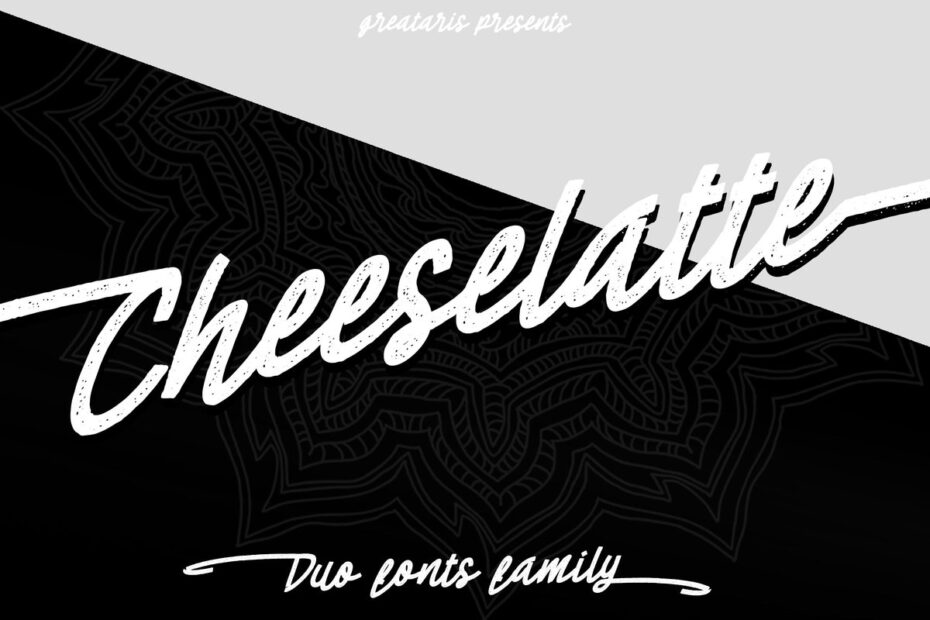
Unleashing the Artistic Expression: Cheese Latte Font
Have you ever found yourself wandering through a bustling market or flipping through a vintage magazine, and suddenly, a font catches your eye? For me, it was a moment like this that sparked the creation of the Cheese Latte Font – a unique script font that blends the elegance of handwriting with the boldness of a permanent marker.
This font, born from the inspiration of packaging products, magazine layouts, and book designs, aims to bring a touch of personality to any project. Its distinctive style is not only visually appealing but also versatile, making it a valuable addition to any designer’s toolkit. With the Cheese Latte Font, designers can add a dash of creativity and flair to their work, setting it apart from the ordinary.
Cheese Latte Font Key Features
- Font Family: A unique, hand-drawn font with a playful and whimsical design.
- Unique Characteristics: Features a distinctive cheese latte-inspired design, with intricate details and textures that give it a one-of-a-kind look.
Designer Review: Cheese Latte Font
Overall, I think the Cheese Latte Font is a unique and quirky addition to any design project. ✨ Its irregular shapes and asymmetrical lines give it a charming, hand-drawn feel that’s sure to grab attention.
The font’s versatility is another major plus. ✨ It works well for a wide range of applications, from headings and titles to body text and even logos. I appreciate how the designer has included a variety of weights and styles to suit different design needs.
- Unique, hand-drawn feel
- Wide range of applications (headings, titles, body text, logos)
- Versatile weight and style options
- Good legibility, even in smaller sizes
- Some characters may not be perfect (e.g. rounded corners on certain letters)
- Not suitable for formal or corporate design projects
- May require additional design work to create a cohesive look
- Not ideal for text-heavy projects (can be overwhelming)
Overall, I think the Cheese Latte Font is a fun and creative option for designers looking to add some personality to their projects. Just be aware of its limitations and use it thoughtfully.
Practical Application Guide: Cheese Latte Font
Tip: Use Cheese Latte Font for titles and headings to add a unique touch to your designs.
Tip: Use Cheese Latte Font for custom illustrations and graphics to add a playful touch.
Tip: Use Cheese Latte Font for presentations and documents to add a unique and eye-catching element.
Cheese Latte Font is ideal for:
- Playful and whimsical designs
- Custom illustrations and graphics
- Presentation and document design
Alternatives to Cheese Latte Font
Circular Std
Circular Std is a modern sans-serif font designed for digital interfaces. It is highly legible and suitable for body text, navigation menus, and digital signage. It is more geometric and clean compared to Cheese Latte Font, making it a better choice for modern and minimalistic designs.
Lato is a clean and elegant sans-serif font suitable for headings, body text, and titles. It has a subtle rounded edge that makes it more approachable than Cheese Latte Font, which is more rough and textured. Lato is a great choice for designs that require a balance between modernity and readability.
Montserrat is a geometric sans-serif font designed for digital interfaces. It is highly legible and suitable for body text, navigation menus, and digital signage. Montserrat is more geometric and clean compared to Cheese Latte Font, making it a better choice for modern and minimalistic designs.
Playfair Display is a luxurious and elegant serif font suitable for titles, headings, and accents. It is more ornate and decorative compared to Cheese Latte Font, making it a great choice for designs that require a touch of sophistication and elegance. Playfair Display is not suitable for body text, but it can add a unique touch to headings and titles.